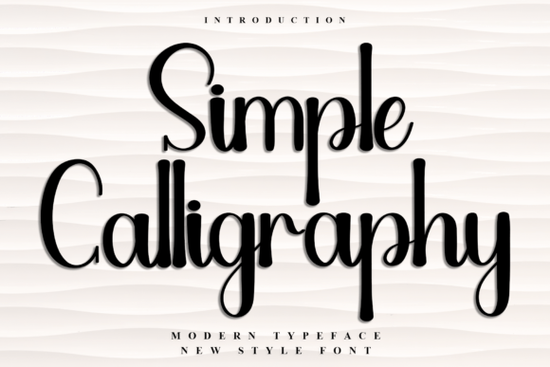
If you create holiday designs or seasonal products, you know the right typeface can make or break the mood. Simple Calligraphy Font from Creative Fabrica offers a festive, cheerful style that works well for greeting cards, gift tags, and Christmas-themed projects. It comes with decorative swirls and ligatures that give your words a handcrafted feel without requiring you to draw anything by hand.
What makes Simple Calligraphy Font different from other script fonts?
Many script fonts look elegant but feel stiff or too formal for casual holiday projects. This typeface leans into a happy, nostalgic atmosphere. The letters have a bouncy rhythm with flourishes that remind me of vintage Christmas cards or handwritten gift labels from a cozy winter market.
One practical feature is the PUA encoding. That means you can access alternate glyphs and ligatures directly in software like Canva, Silhouette Studio, or Adobe Illustrator without needing special workarounds. If you've ever bought a font only to find the swashes were locked behind complicated software steps, you'll appreciate how straightforward this one is.
For print-on-demand sellers, having access to those extra characters means you can create unique variations of the same phrase across different products. That helps your listings feel distinct while keeping a consistent brand look.
Does Simple Calligraphy Font work for non-holiday projects?
Although the description highlights holiday use, the style is versatile enough for other cheerful designs. Birthday cards, party invitations, baby shower decorations, and even school lovers font projects can benefit from its friendly personality. The key is pairing it with clean, simple backgrounds so the decorative elements stand out without overwhelming the layout.
This is especially useful when you're creating custom signature font-style elements for logos or monograms. You can swap out default letters for more ornate versions without editing vector paths.
What holiday projects benefit most from this font?
Based on the decorative style, here are the applications where Simple Calligraphy Font shines:
- Greeting cards: The flourishes naturally frame short messages like "Merry Christmas" or "Happy Holidays."
- Gift labels: Small tags with names or short phrases look hand-lettered without the time commitment.
- Holiday banners: Bouncing letters work well on fabric or paper banners for parties.
- Mug designs: Short quotes fit nicely on curved surfaces, and the ligatures help avoid awkward letter spacing.
- Digital planners: Use it for festive sticker sets or cover pages in your planner templates.
Practical tip for using decorative fonts in your designs
When using a font with many flourishes, keep the rest of your layout simple. Avoid adding extra decorative elements like borders or heavy textures behind the text. The font itself carries enough visual weight. For greeting cards, try using it on a solid colored background with plenty of white space around the words. For gift labels, print on kraft paper to enhance the nostalgic feel.